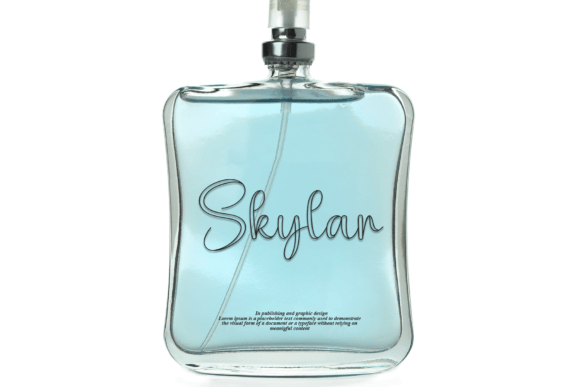
Introducing Maybe Font: The Epitome of Elegance and Sophistication
In the realm of typography, few fonts manage to capture the essence of elegance and sophistication as effortlessly as Maybe Font. This beautifully elegant handwritten script font is characterized by its long, flowing lines and graceful swashes, making it an ideal choice for a variety of design projects that demand a touch of class and romance. From wedding stationery to branding, quotes, and feminine designs, Maybe Font is the perfect companion for designers seeking to infuse their creations with a dash of charm and refinement.
Key Features of Maybe Font
- Elegant Handwritten Script: Maybe Font boasts a fluid, handwritten script that exudes elegance and sophistication.
- Long, Flowing Lines: The font’s elongated lines and curves create a sense of movement and fluidity, adding to its charm.
- Graceful Swashes: The inclusion of swashes adds a decorative touch, perfect for emphasizing certain words or phrases.
- Versatile: Suitable for a wide range of design projects, including wedding stationery, branding, quotes, and feminine designs.
Exploring the Use Cases of Maybe Font
Maybe Font’s versatility is one of its most compelling attributes. Its application spans across various design domains, each benefiting from the font’s unique charm.
Wedding Stationery
Weddings are a celebration of love and commitment, and the stationery sets the tone for the entire event. Maybe Font, with its elegant and romantic appeal, is perfectly suited for wedding invitations, save-the-date cards, and thank-you notes. The font’s flowing lines and swashes add a touch of sophistication and whimsy, making every piece of stationery feel special.
Branding
In branding, establishing a strong visual identity is crucial. Maybe Font can be used to create logos, packaging, and marketing materials that convey a sense of luxury, elegance, and approachability. Its unique character ensures that brands stand out in a crowded marketplace, making it an excellent choice for businesses aiming to project a refined image.
Quotes and Typography
Quotes and typographic designs are popular for sharing inspiring words and phrases. Maybe Font brings a level of sophistication to these designs, making them more impactful and shareable. The font’s elegant appearance ensures that the quotes not only convey their message effectively but also do so with style.
Feminine Designs
Maybe Font’s feminine appeal makes it a go-to choice for designs targeting a female audience or those that wish to evoke a sense of grace and beauty. From fashion blogs to product packaging, the font adds a touch of elegance that resonates with the target audience.
Design Tips for Using Maybe Font
To maximize the impact of Maybe Font, consider the following design tips:
- Pair with Simple Fonts: When combining Maybe Font with other fonts, opt for simple, clean typefaces that won’t compete with its elegance.
- Use Moderation: While Maybe Font is beautiful, it’s best used in moderation. Limit its use to headlines or key phrases to maintain impact.
- Adjust Size and Color: Experiment with different sizes and colors to create visual hierarchy and emphasize certain parts of your design.
- Consider Swashes: Don’t be afraid to use the swashes to add a decorative touch to your text. They can make your design more dynamic and interesting.
- Font Type: Maybe Font is a script font.
- Characters: It includes a wide range of characters, including uppercase and lowercase letters, numbers, and punctuation.
- Swashes: The font features multiple swashes, allowing for creative and dynamic text arrangements.
Maybe Font is a stunning example of elegant typography, offering designers a powerful tool for creating beautiful, sophisticated designs. Its versatility, combined with its unique charm, makes it an excellent choice for a variety of projects, from wedding stationery to branding and quotes. By incorporating Maybe Font into their designs, creatives can add a touch of romance, elegance, and sophistication, elevating their work to new heights.